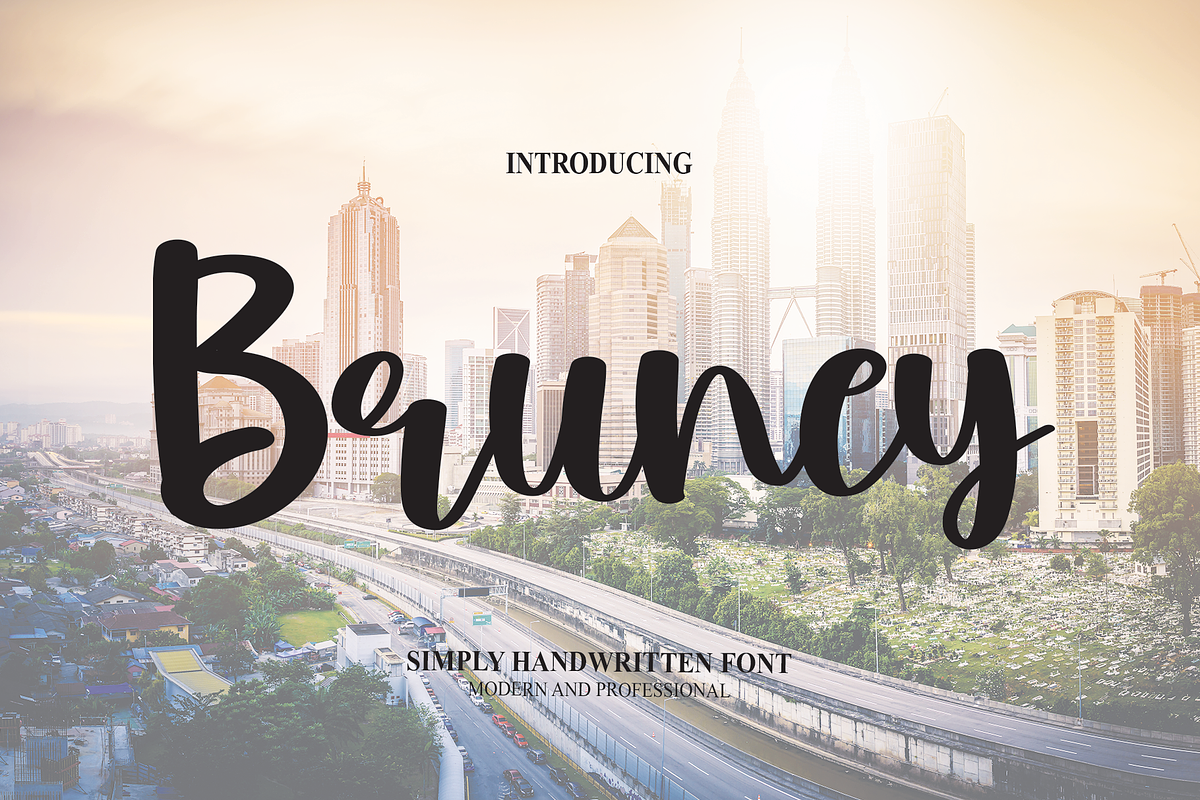
Bruney | Script Font Free Download
The Bruney | Script Font Free Download is a beautiful and elegant handwritten script typeface designed to bring a personal, artistic touch to your designs. Perfect for wedding invitations, branding, greeting cards, social media graphics, and logo designs, this font exudes sophistication and charm.
With its smooth, flowing strokes and stylish curves, Bruney offers a graceful, yet bold feel. It includes uppercase and lowercase characters, stylistic alternates, ligatures, punctuation, and multilingual support, making it versatile for a wide variety of creative projects.